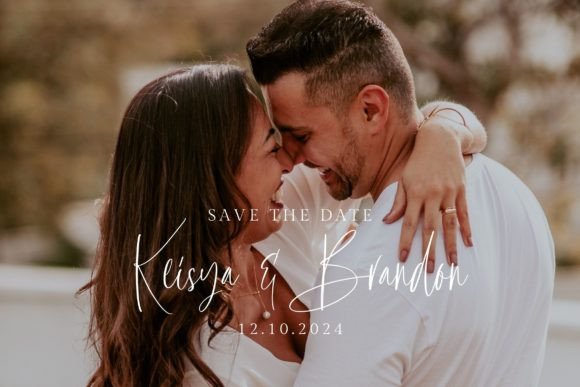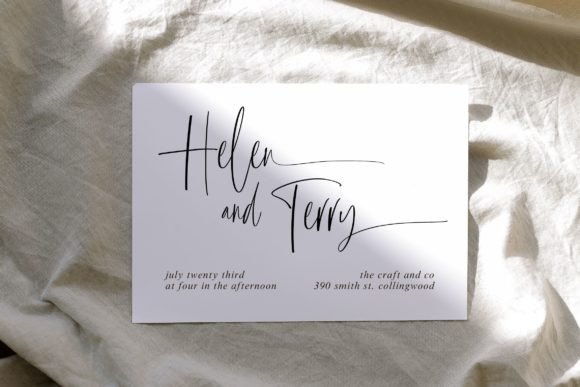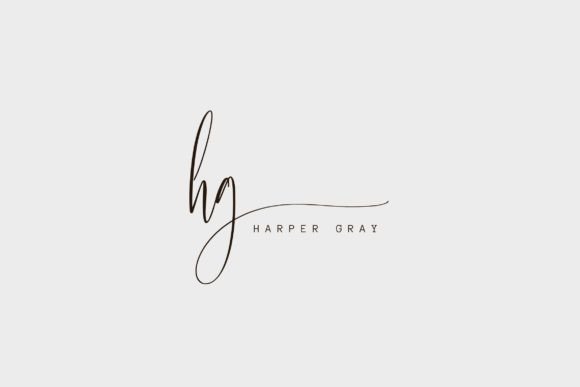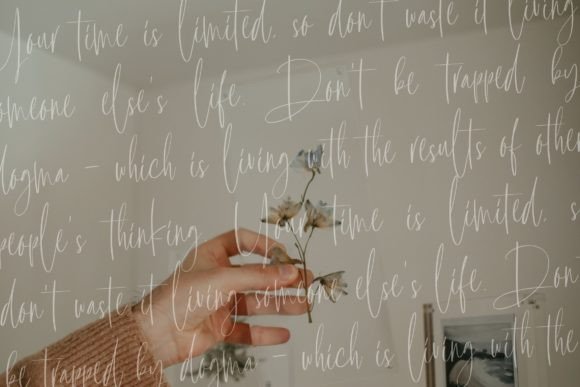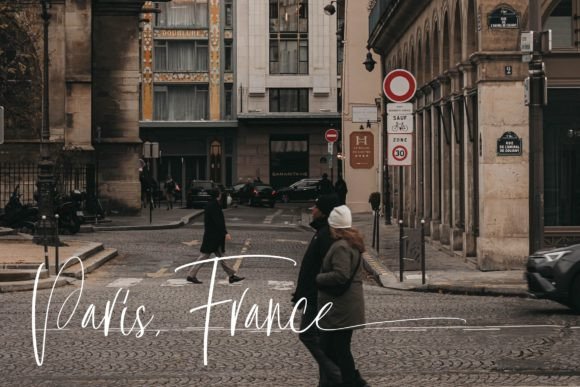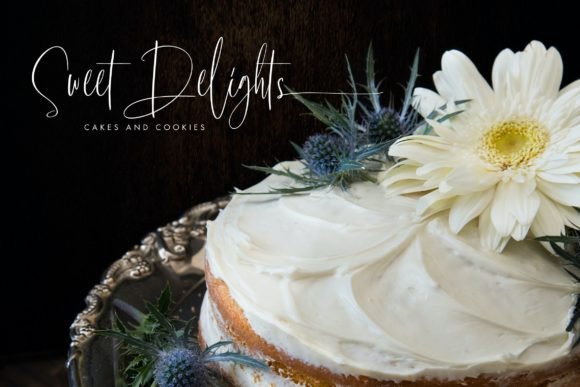
The Agathe Font: A Handwriting Script Dream for Designers
Ah, the elusive perfect font. You know, that one that makes your design project go from meh to mesmerizing? I’ve been there, friends. I was working on a wedding stationery set for a client, and I just couldn’t find the right handwritten font to capture that elegant, personal feel. That’s when I stumbled upon Agathe, and let me tell you, it was love at first sight! 💕
What Makes Agathe Special?
Agathe is a beautiful handwriting script font that’s perfect for wedding stationery, elegant handwritten logos and branding, websites, social media quotes, and more! It’s got a full set of ending lowercase swashes, which give it a lovely handwritten calligraphic look. Plus, it’s PUA encoded, making it super easy to access all the amazing glyphs and ligatures.
So, what do I love about Agathe? 🤔 Here are a few things:
• ✨ Elegant and sophisticated, yet still friendly and approachable
• ✅ Perfect for wedding stationery, branding, and social media quotes
• 💫 Includes a full set of ending lowercase swashes for a handwritten calligraphic look
• 🔥 PUA encoded for easy access to glyphs and ligatures
And, of course, no font is perfect. Here are a few small quirks:
• ⚠️ Some of the swashes can be a bit finicky to work with, but trust me, it’s worth it
• 🤔 Can be a bit overused, so be mindful of your design balance
The Story Behind Agathe
Agathe was designed with love and care by a talented font designer who wanted to create a beautiful, elegant script font that would capture the essence of handwritten calligraphy. The designer drew inspiration from classic calligraphy and modern handwriting, blending the two to create a unique and stunning font.
Q: What is PUA encoding, and why is it important?
A: PUA (Private Use Area) encoding allows font designers to include additional glyphs and characters that aren’t part of the standard Unicode character set. This means that Agathe includes a wide range of swashes, ligatures, and other special characters that make it super versatile and easy to use.
Q: Can I combine Agathe with other fonts?
A: Yes! Agathe pairs beautifully with sans-serif fonts, such as Helvetica or Arial. Experiment with different combinations to find the perfect look for your project.